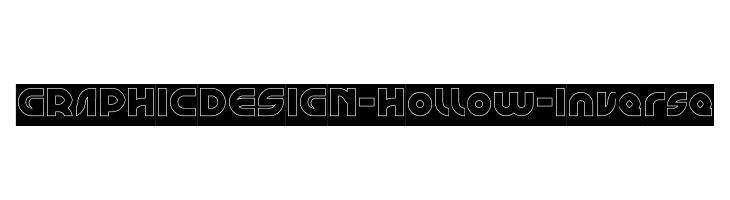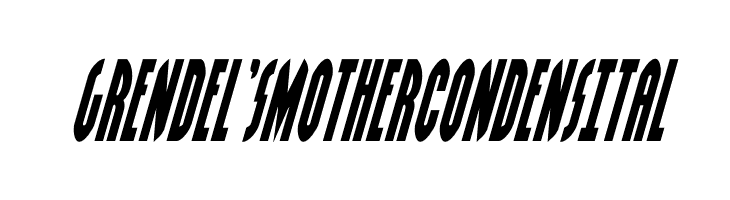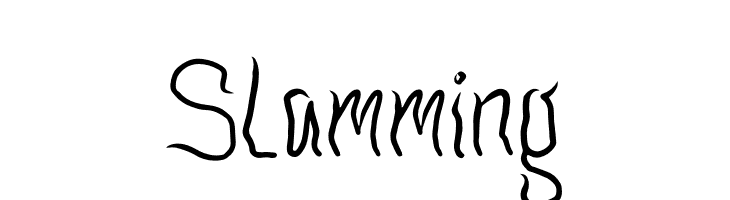
A bold, slanted, and condensed font with a dynamic and modern style.
A lively, expressive handwritten font with dynamic strokes.
A bold, handwritten-style font with rounded, playful characters.
A modern, elegant script font with high contrast and flowing curves.
A bold, italic script font with interconnected letters and smooth curves.
A decorative and vintage-style font with ornate uppercase letters and complementary lowercase characters.
A bold, geometric font with a futuristic and industrial aesthetic.
An elegant script font with graceful, flowing lines and delicate curves.
A bold, futuristic font with rounded edges and a sleek, modern design.
An elegant script font with intricate, flowing letterforms and decorative flourishes.